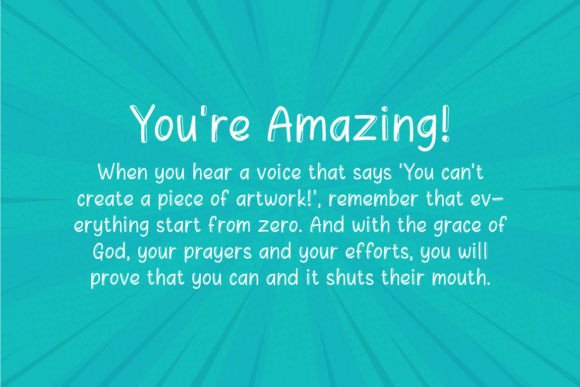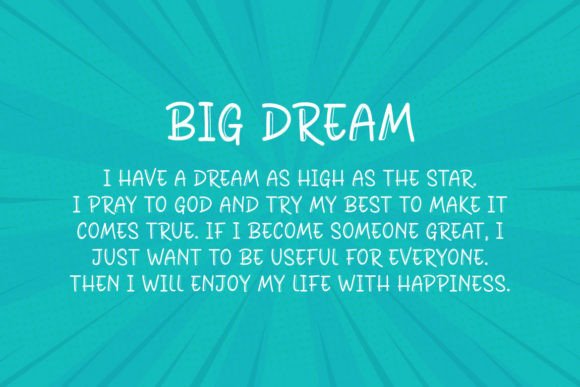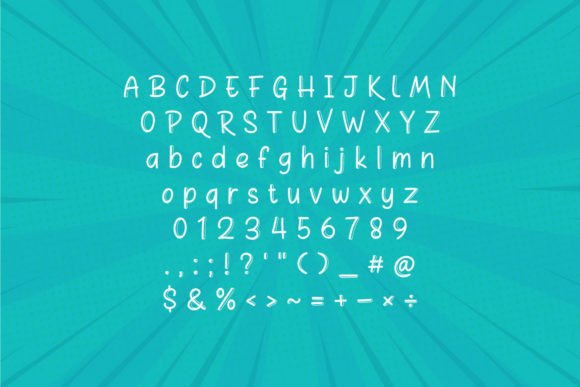
Introducing Beachday Font: Elevate Your Designs with a Cool and Unique Sans Display Font
Are you tired of using the same old fonts in your designs? Do you want to add a touch of personality and uniqueness to your creations? Look no further than Beachday Font, a cool and unique sans display font that’s perfect for designers and crafters alike. In this article, we’ll dive into the features and benefits of Beachday Font, and explore how it can elevate your designs to the next level.
A Cool and Unique Font for Any Project
Beachday Font is a sans display font that’s perfect for a wide range of projects, from posters and flyers to social media graphics and website headers. Its unique design makes it stand out from more traditional fonts, adding a touch of personality and flair to any creation. Whether you’re designing for a client or working on a personal project, Beachday Font is an incredible asset to have in your font library.
Key Features of Beachday Font
- Unique Design: Beachday Font features a one-of-a-kind design that’s sure to turn heads. Its sans serif style gives it a clean and modern look that’s perfect for a wide range of projects.
- High Versatility: Beachday Font is highly versatile, making it suitable for a wide range of projects and applications. Use it for headlines, titles, and short paragraphs of text.
- Easy to Read: Despite its unique design, Beachday Font is easy to read, even at smaller sizes. This makes it perfect for use in body text, as well as headlines and titles.
- Multilingual Support: Beachday Font supports a wide range of languages, making it a great choice for designers working on international projects.
Benefits of Using Beachday Font
So why should you choose Beachday Font for your next project? Here are just a few benefits of using this amazing font:
- Adds Personality to Your Designs: Beachday Font adds a touch of personality and uniqueness to your designs, setting them apart from more traditional and boring fonts.
- Elevates Your Brand: If you’re designing for a client, Beachday Font can help elevate their brand and make it more memorable.
- Perfect for Summer and Beach-Themed Projects: As its name suggests, Beachday Font is perfect for summer and beach-themed projects, but its versatility means it can be used for a wide range of projects and applications.
How to Use Beachday Font in Your Designs
Using Beachday Font in your designs is easy. Here are a few tips to get you started:
- Pair it with Other Fonts: Beachday Font looks great when paired with other fonts, such as serif fonts or script fonts. Experiment with different combinations to find the one that works best for your project.
- Use it for Headlines and Titles: Beachday Font is perfect for use in headlines and titles, where its unique design can really shine.
- Experiment with Colors and Textures: Beachday Font looks great in a wide range of colors and textures. Experiment with different options to find the one that works best for your project.